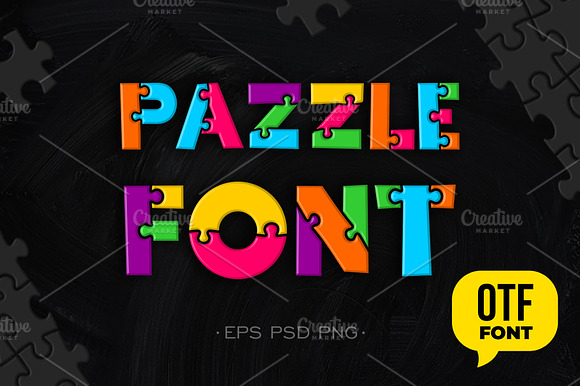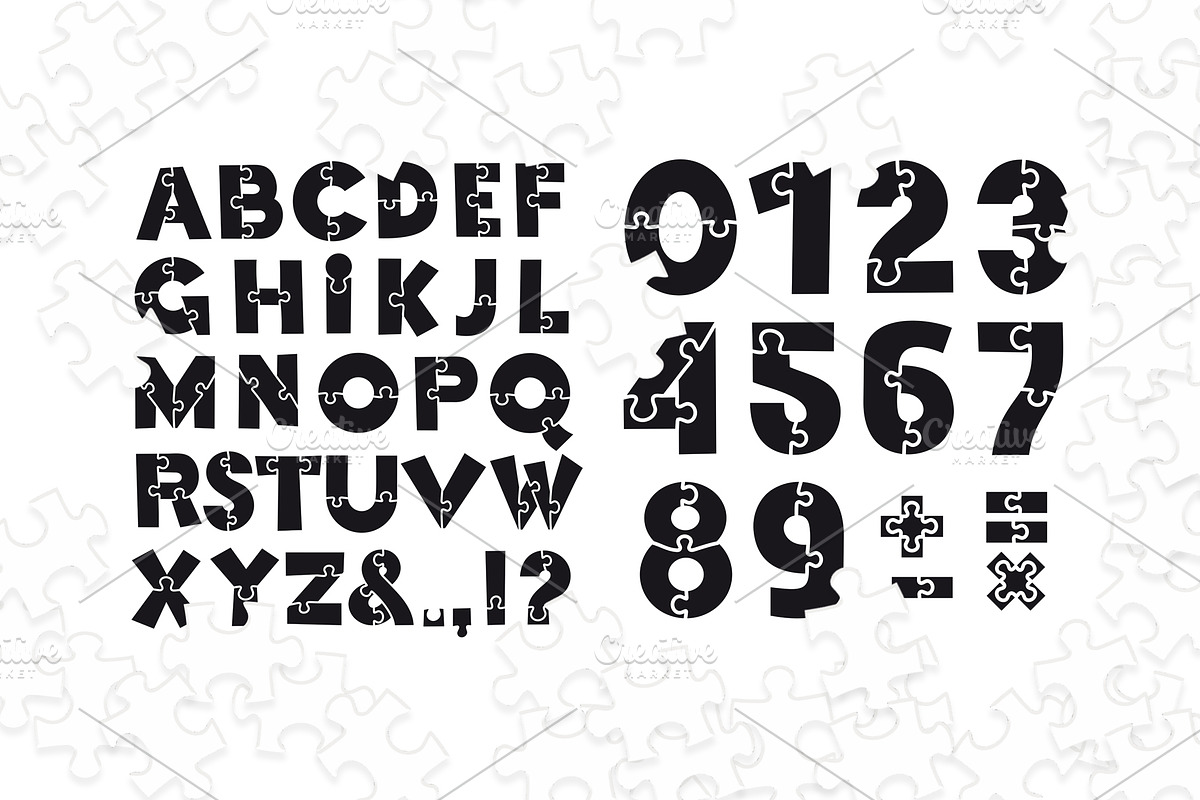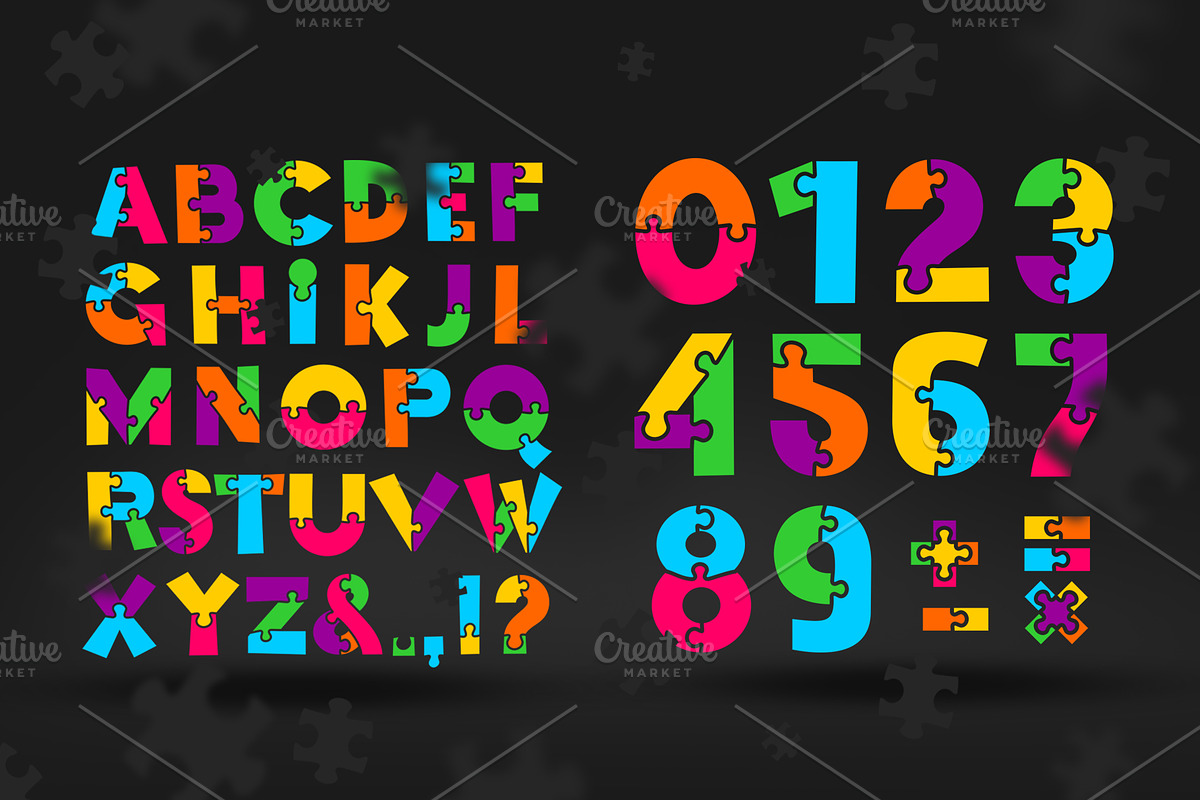
Puzzle font otf.
Puzzle font. Alphabet and numbers Vector illustration creative font.
Puzzle font otf. by Vector photo shop fits naturally into Branding, posters, packaging, typography.